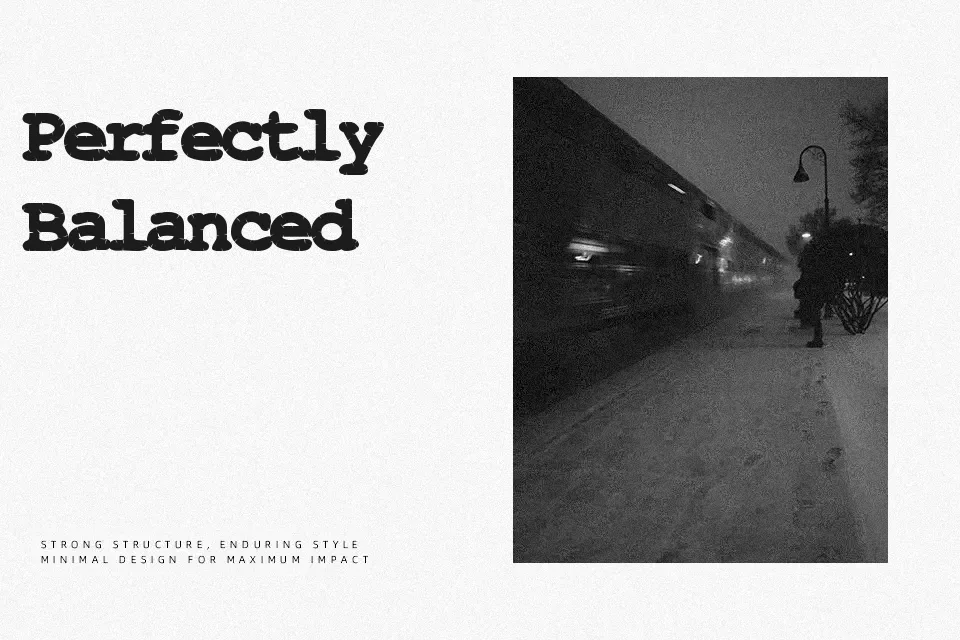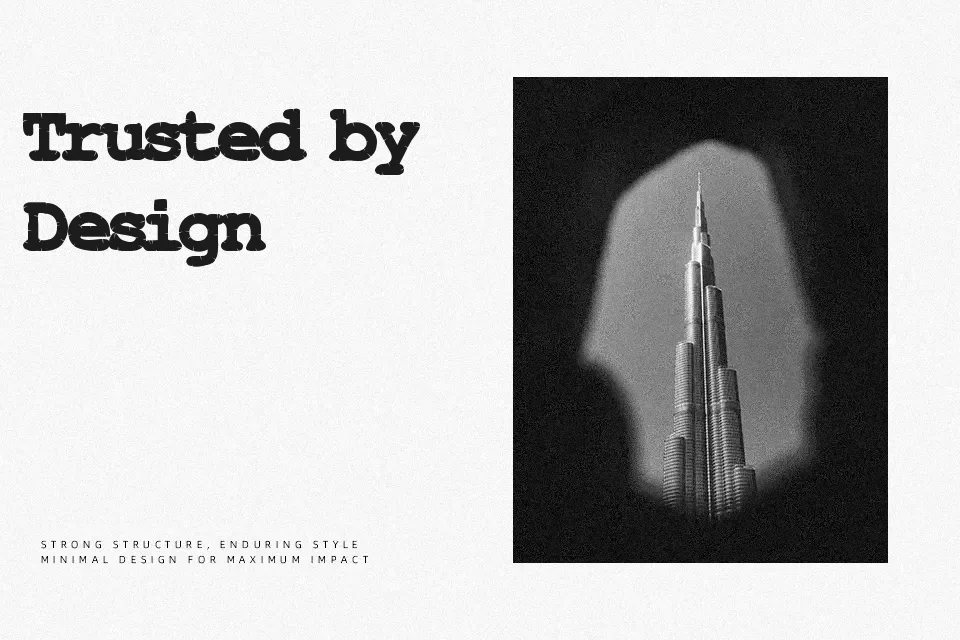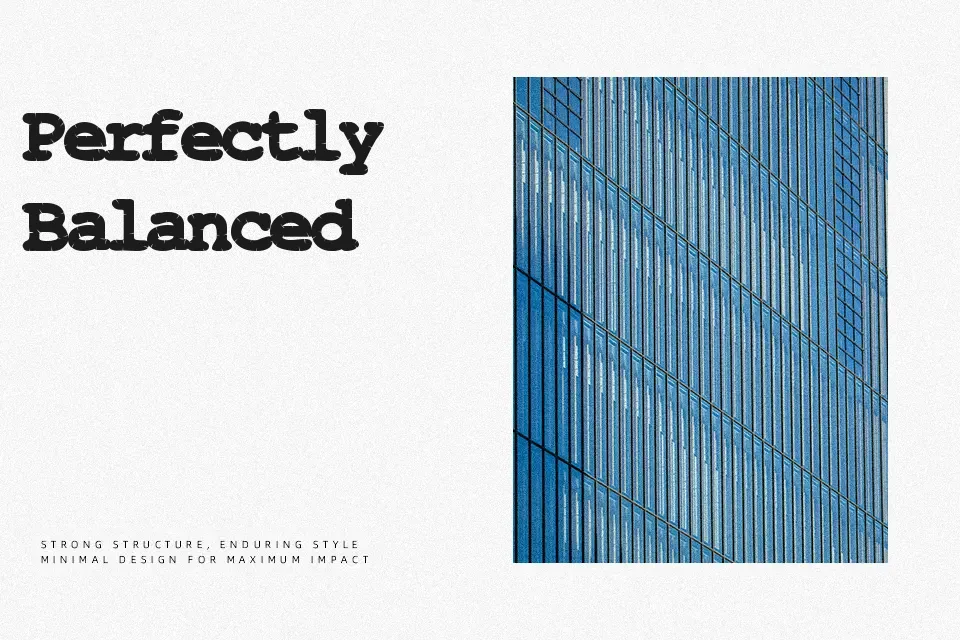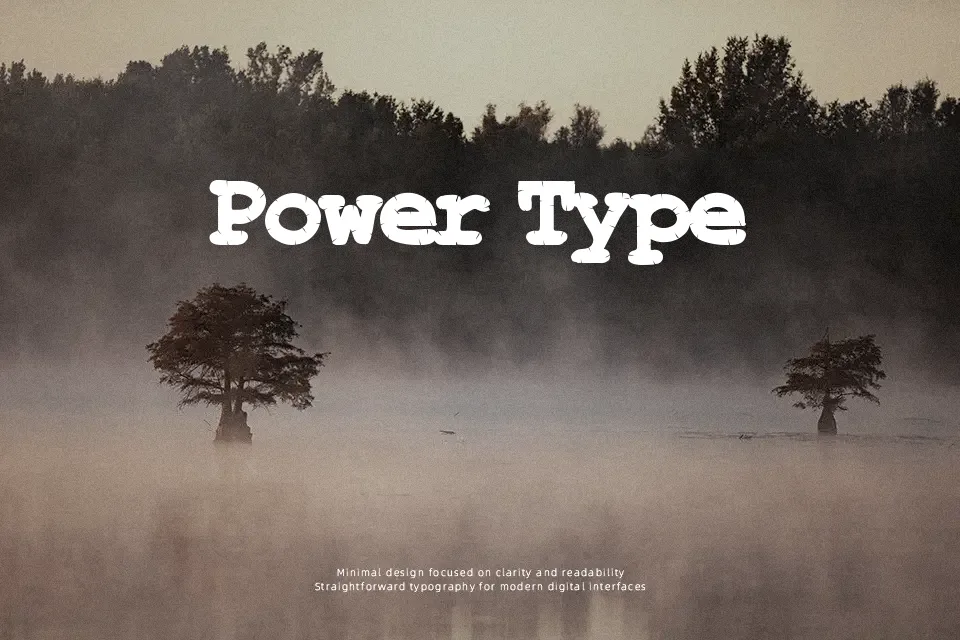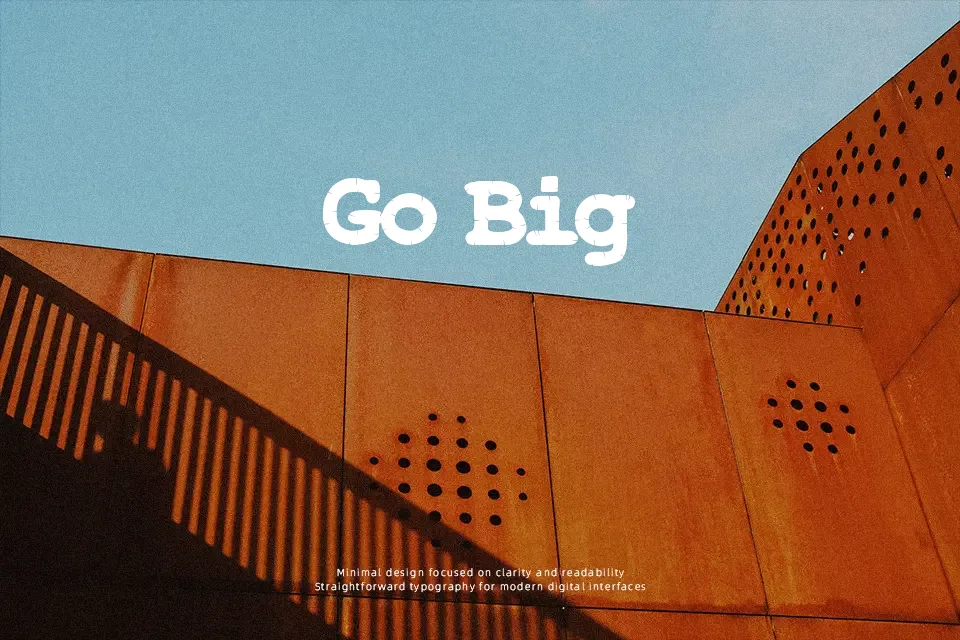
Stitchy Times Font
Stitchy Times Font combines classical serif silhouettes with a textured, segmented stroke structure that mimics handmade sewing stitches. The letterforms display moderate proportions and open character spacing, allowing each dashed contour to preserve its decorative identity without merging into neighboring glyphs. While this unique needlework styling excels in artisan packaging labels, retro merchandise graphics, and craft workshop headlines, the fragmented lines become difficult to parse when reduced in scale. Dense editorial layouts and continuous body paragraphs suffer from decreased reading comfort, making the typeface far more effective as an eye-catching display element than a functional text solution.
Best For: artisan craft packaging, sewing workshop posters, vintage apparel tags, retro merchandise headlines
Not Ideal For: continuous body text, mobile interface labels, dense editorial articles, technical spreadsheets
Perfect for branding, fashion, and headline, with a artistic and decorative style.